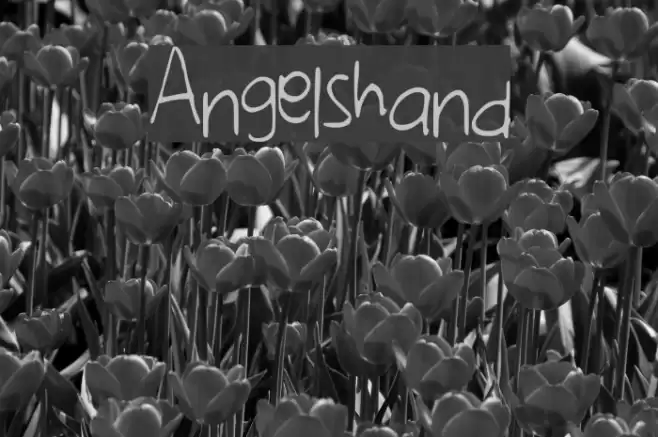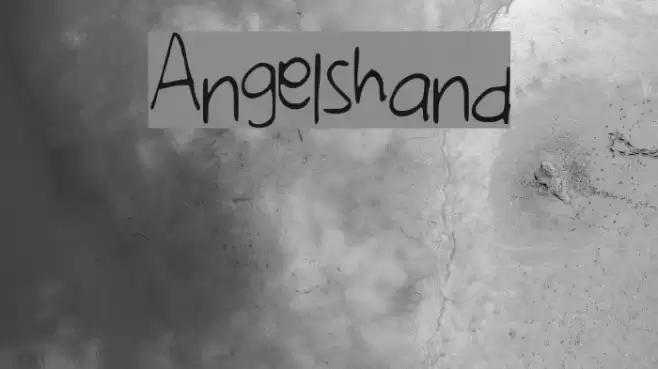
Angelshand Font
Angelshand Description
This font features a playful and informal handwritten style, characterized by its irregular and slightly whimsical letterforms. The strokes are uneven, giving it a casual and personal touch, reminiscent of a child's handwriting or a quick note jotted down. The characters are slightly slanted, adding to the dynamic and lively feel. The font maintains a consistent line weight throughout, with rounded edges that soften the overall appearance. It includes a full set of uppercase and lowercase letters, numbers, and a variety of special characters, making it versatile for various uses.
A playful, informal handwritten font with irregular, whimsical letterforms from Uncategorized fonts.
- Proposed Projects: Ideal for greeting cards, children's books, casual invitations, and personal notes.
- Overall Style: Casual
- Use Case: Headlines, Informal text, Creative projects